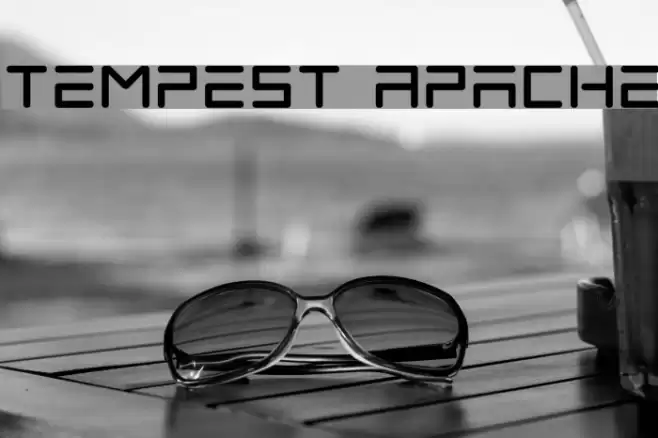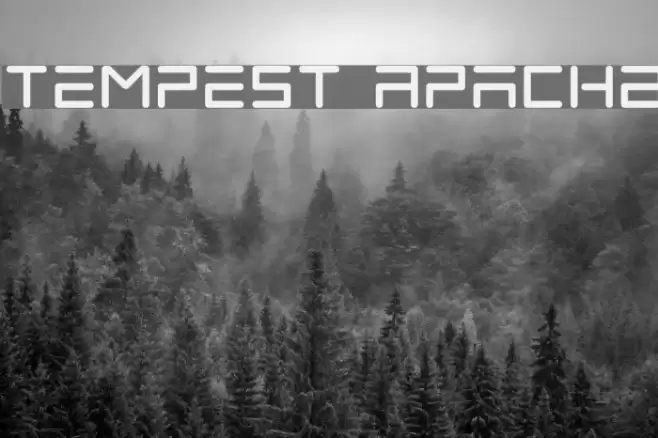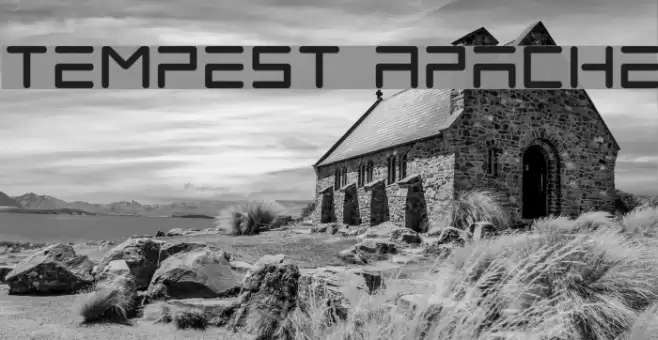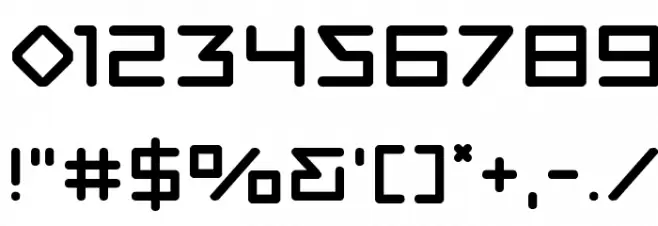
Tempest Apache Font
Tempest Apache Description
This font features a futuristic and geometric design, characterized by its angular and structured letterforms. The uppercase and lowercase letters maintain a consistent style, with sharp edges and a uniform stroke width that gives it a modern and technological appearance. The numerals and special characters follow the same design principles, ensuring a cohesive look across all glyphs. The font's clean lines and minimalistic approach make it suitable for projects that require a contemporary and innovative feel.
A futuristic, geometric font with angular, structured letterforms from Uncategorized fonts.
- Proposed Projects: Ideal for technology branding, sci-fi themed designs, video game interfaces, and modern advertising.